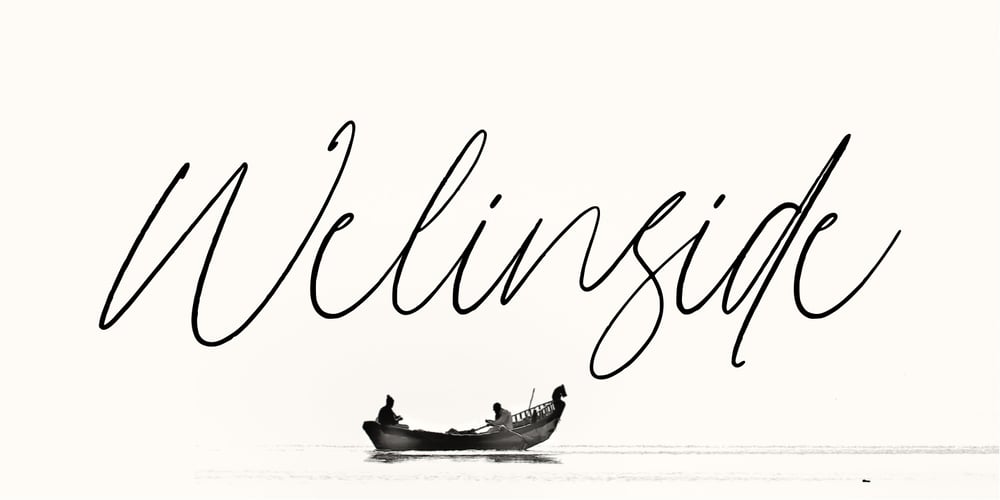
Welinside
Welinside font
Welinside Font Family was designed by Good Java and published by Good Java Studio. Welinside contains 1 styles and family package options. Welinside is a natural and modern handwritten font. It’s perfect for logos, invitations, stationery, wedding designs, social media posts, advertisements, product packaging, product designs, labels, photography, watermark, special events or anything. – Very simple installation – PUA Encoded open – Very great for branding, logotype, handlettering, invitations, or fashion branding – Multilingual Support – Support for Adobe Illustrator, Corel Draw, Indesign or Adobe Photoshop – Support for MAC or Windows